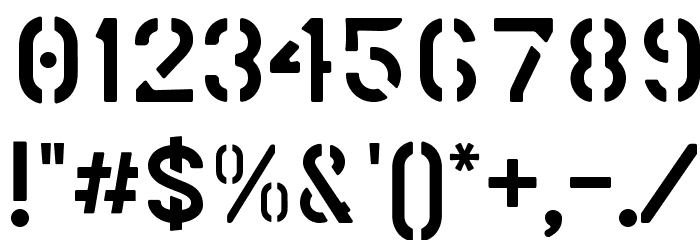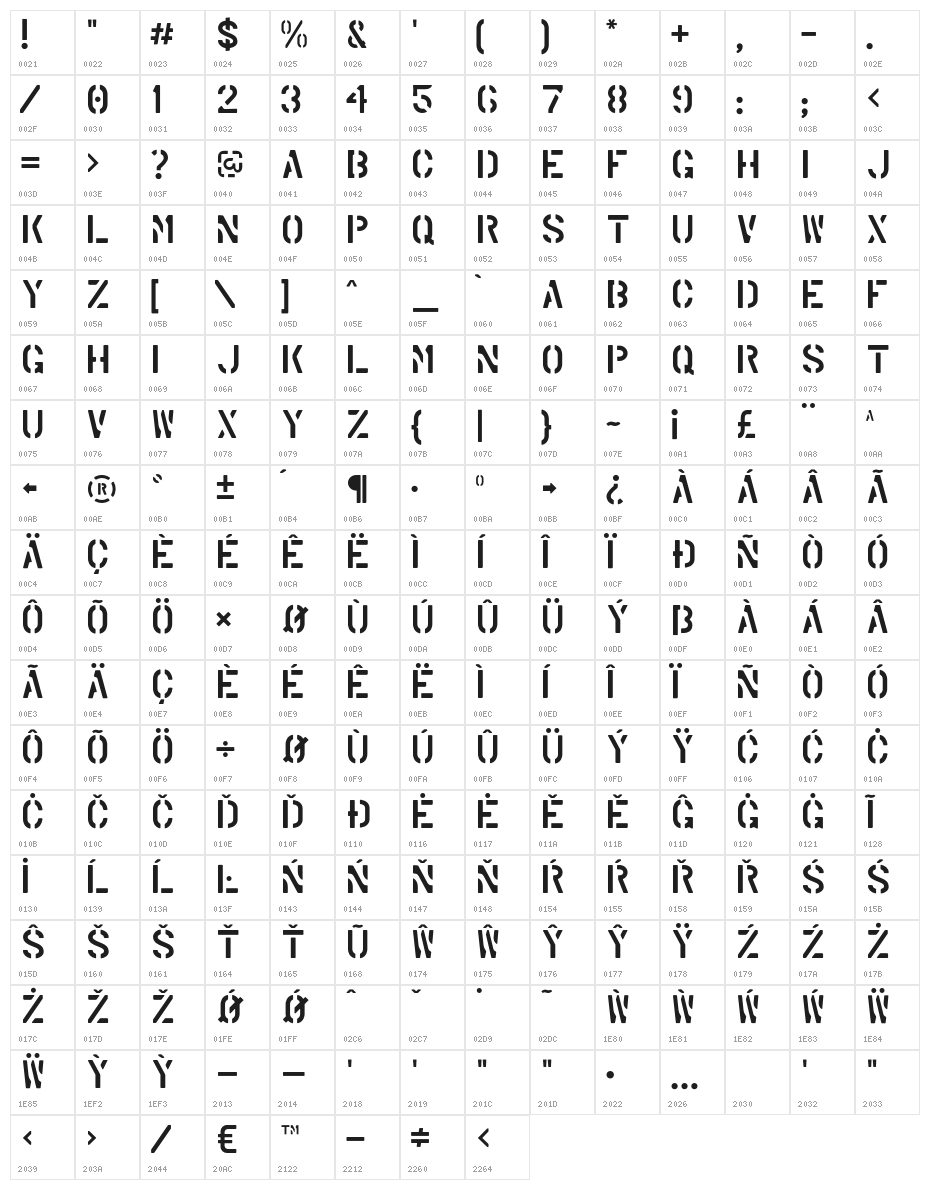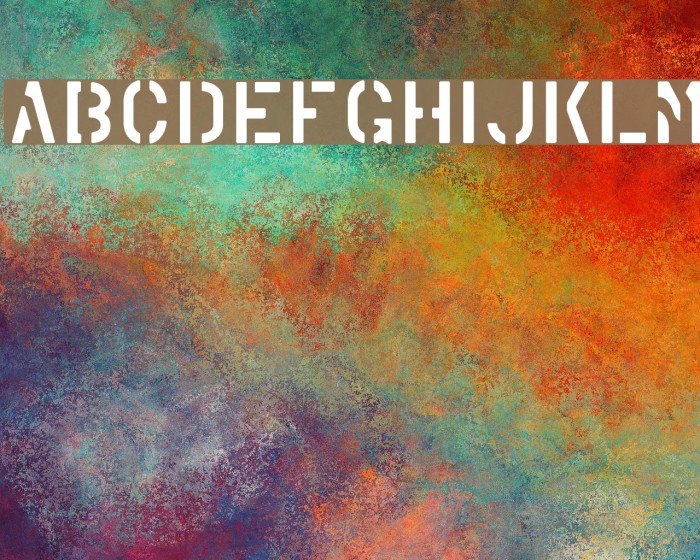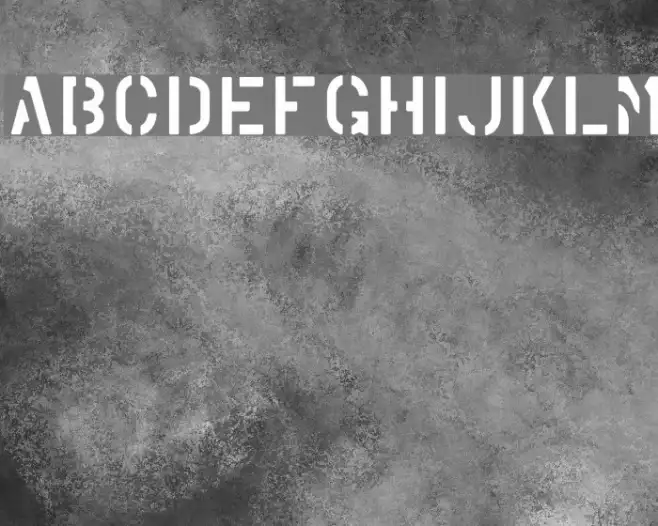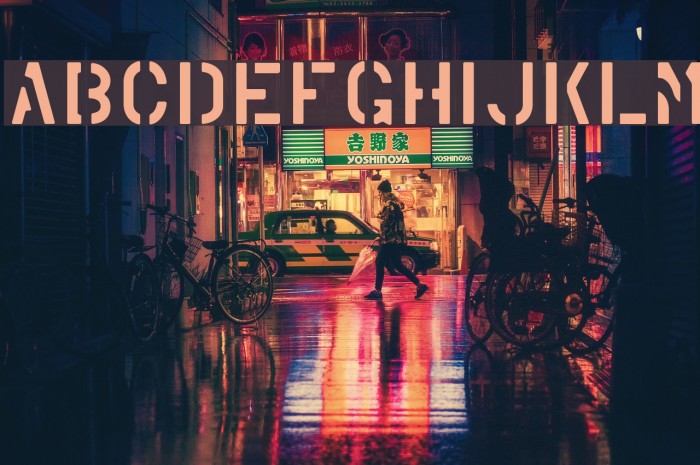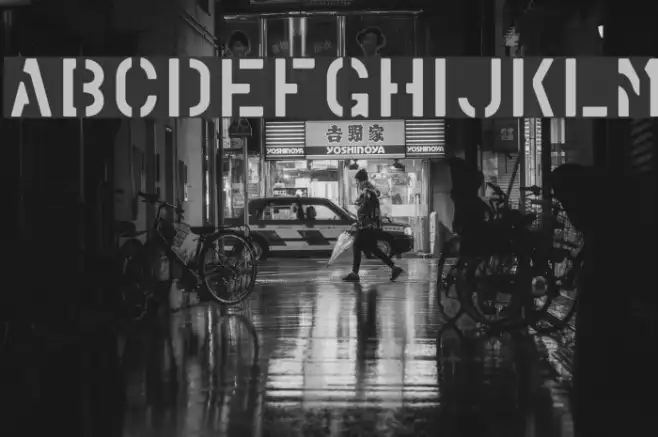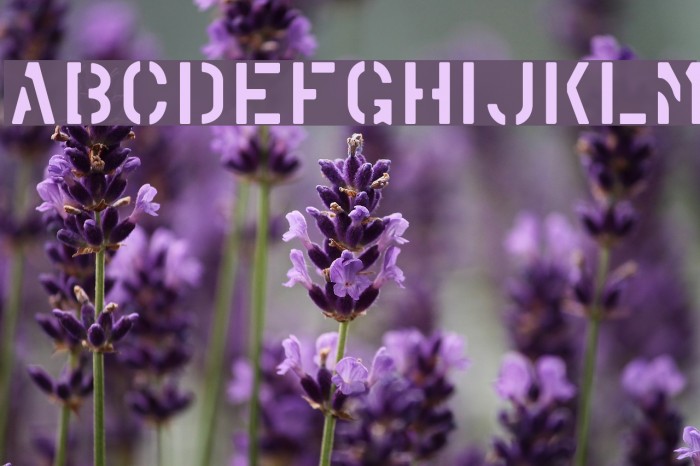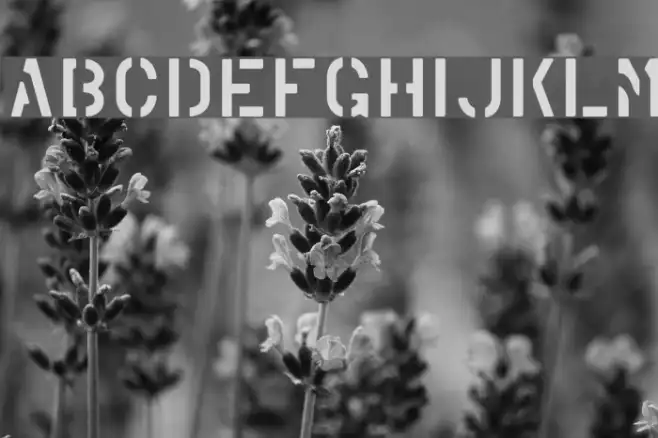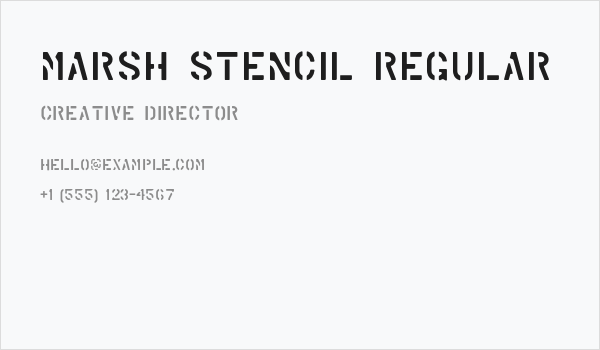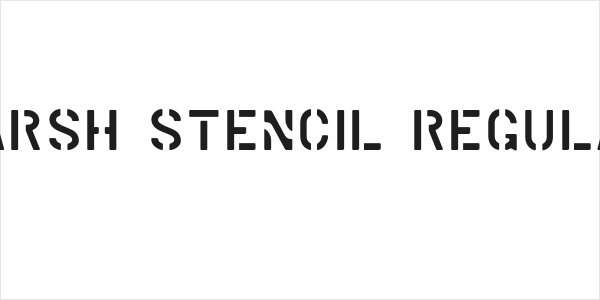
Marsh Stencil Regular Font
Marsh Stencil Regular Description
This font features a bold, stencil-like design with distinct cutouts in each character, giving it a rugged and utilitarian appearance. The uppercase and lowercase letters maintain a consistent style, with sharp angles and clean lines that enhance readability. The numbers and special characters follow the same aesthetic, ensuring uniformity across all glyphs. Its design is reminiscent of military or industrial stencils, making it ideal for projects that require a strong, impactful visual presence. The font's boldness and unique style make it stand out, while the stencil gaps add an element of intrigue and complexity.
| Overall Style | Industrial, Rugged |
| Use Case | Headlines, Logos, Signage |
| Proposed Projects | Ideal for military-themed designs, industrial branding, posters, and signage. |